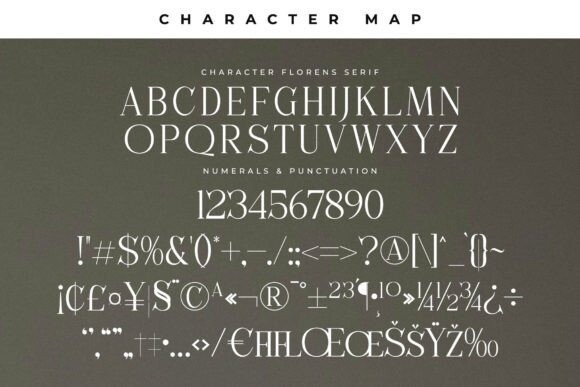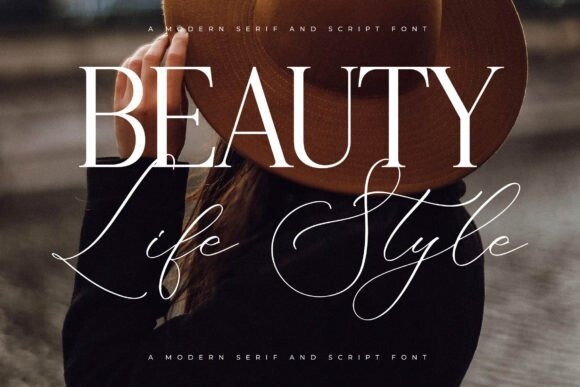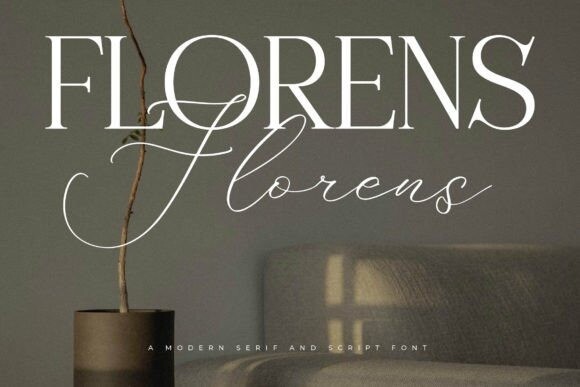
Florens Duo Font
Florens Duo Font, a font duo, seamlessly combines modernity with elegance. The serif font exudes sophistication and timelessness, while the script font adds a touch of fluidity and personal charm. This harmonious pair is perfect for upscale branding, wedding invitations, and editorial designs. Florens delivers a blend of contemporary and classic aesthetics, making it a versatile choice for designers.